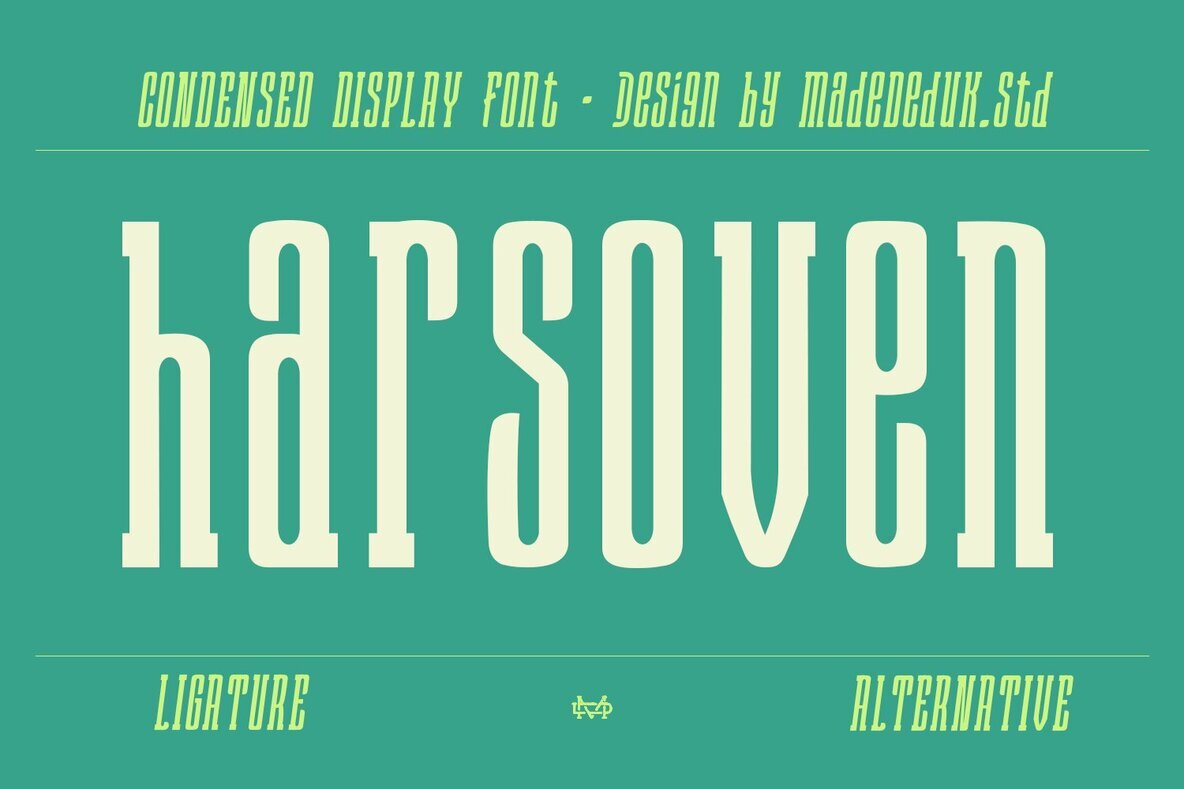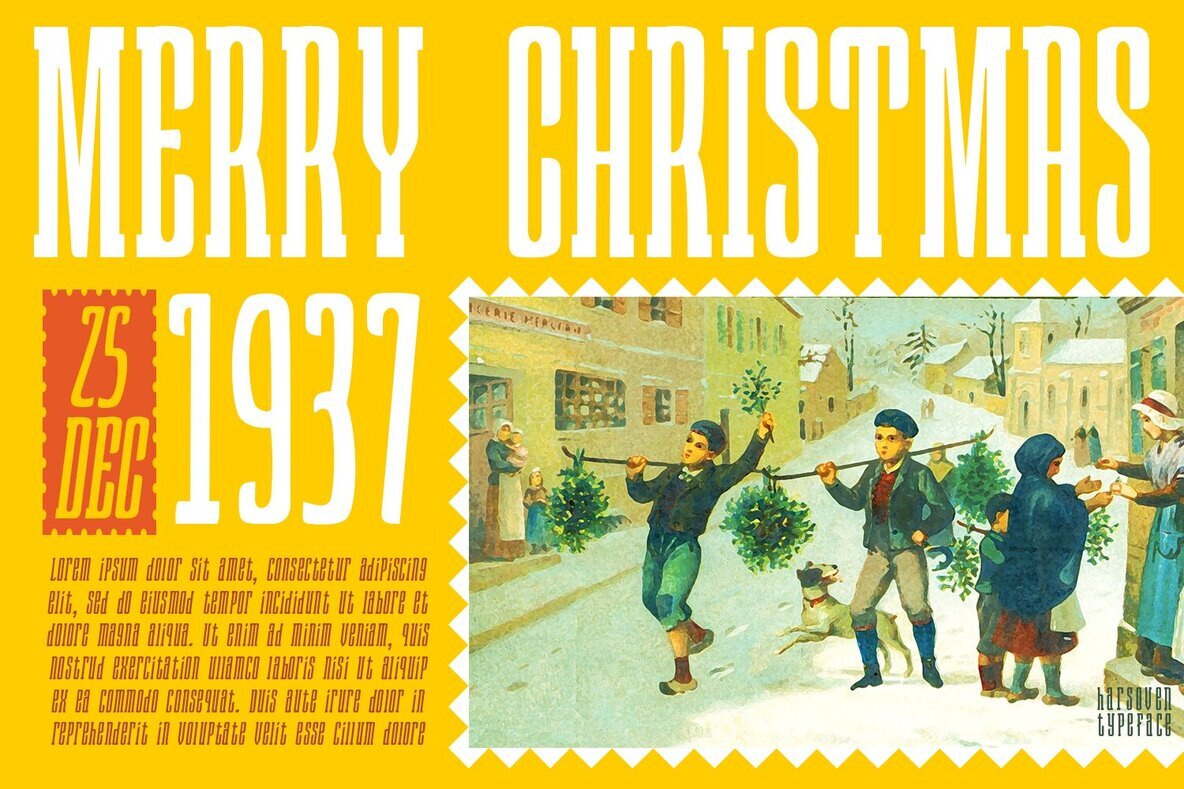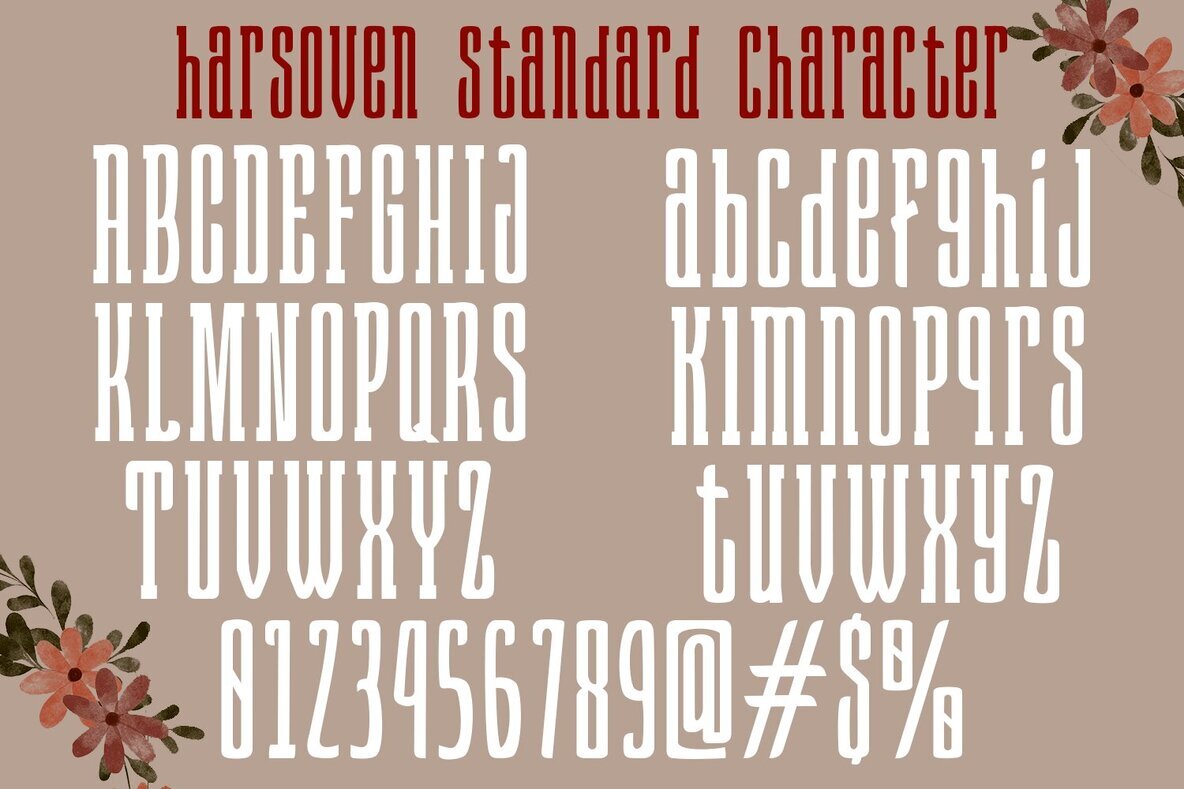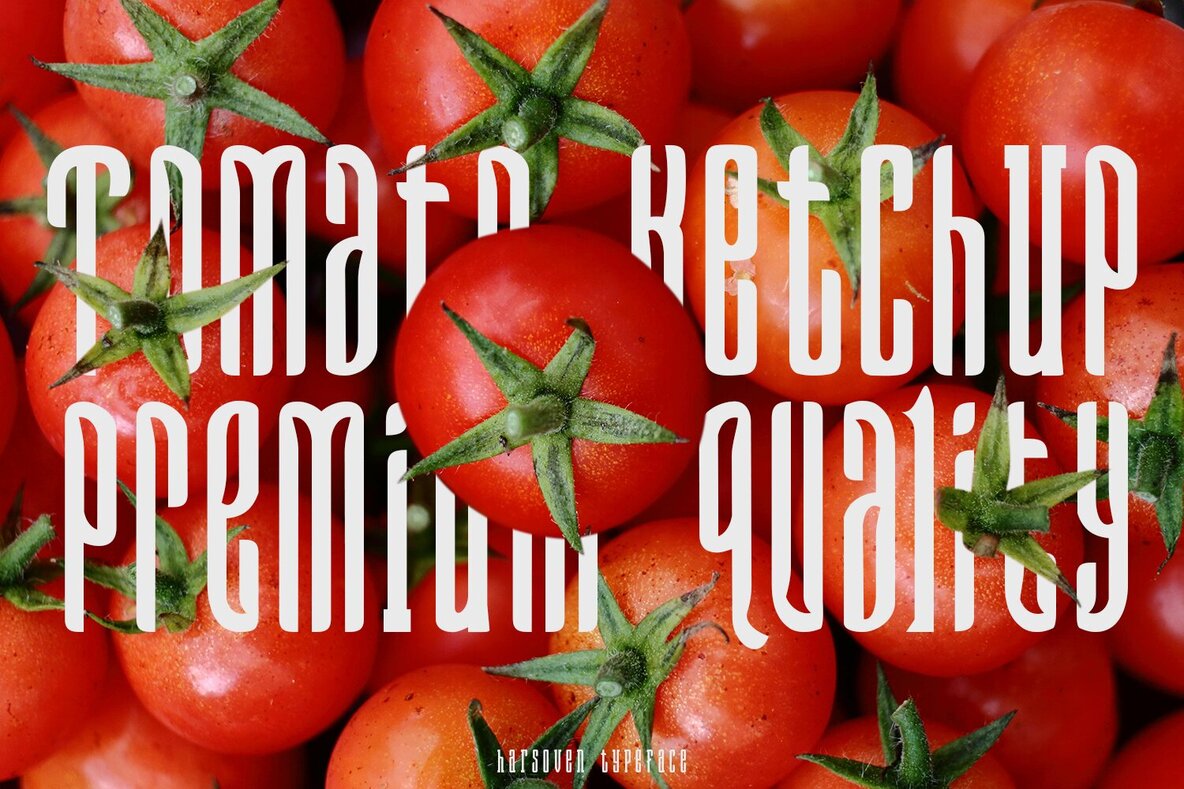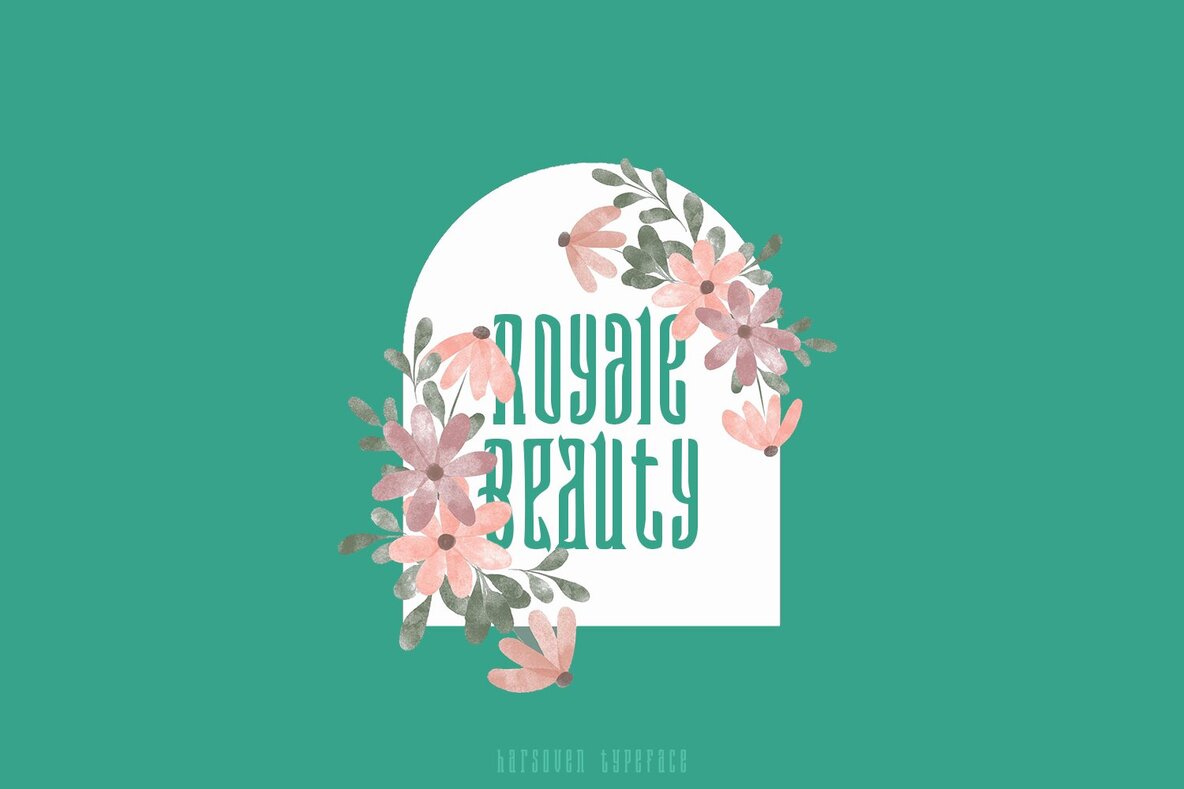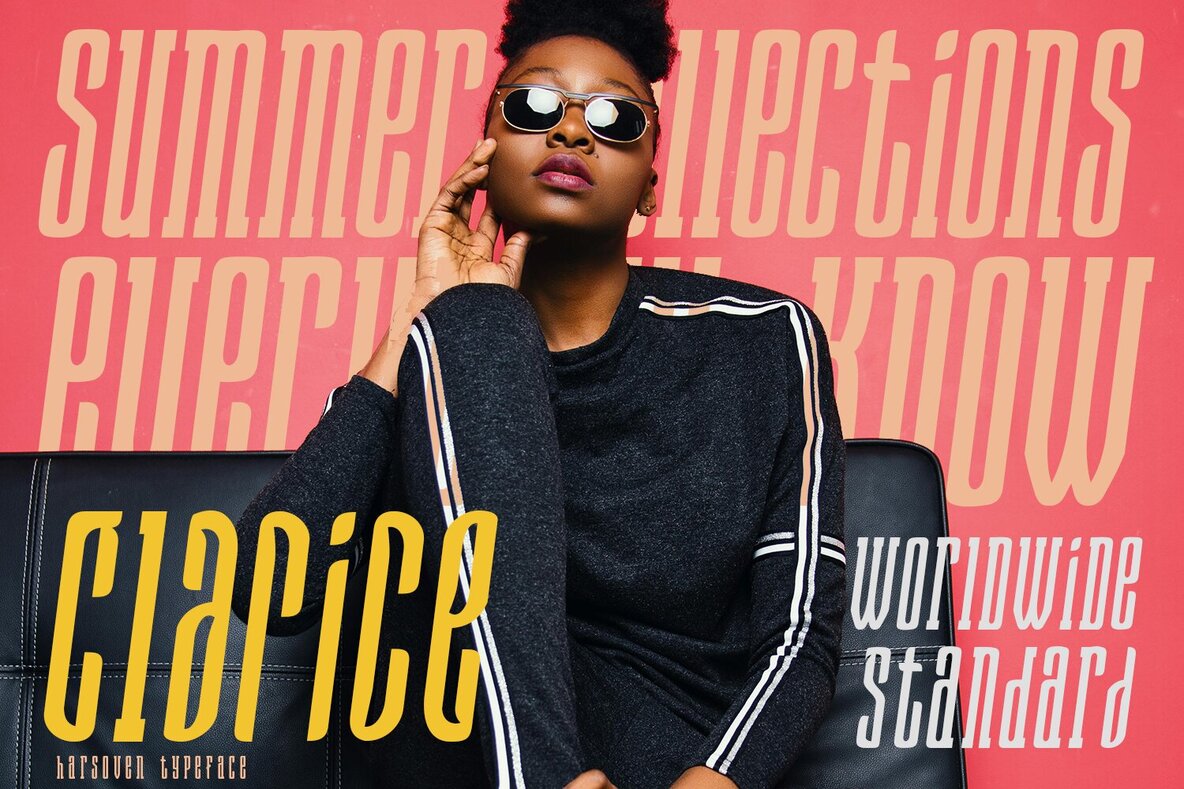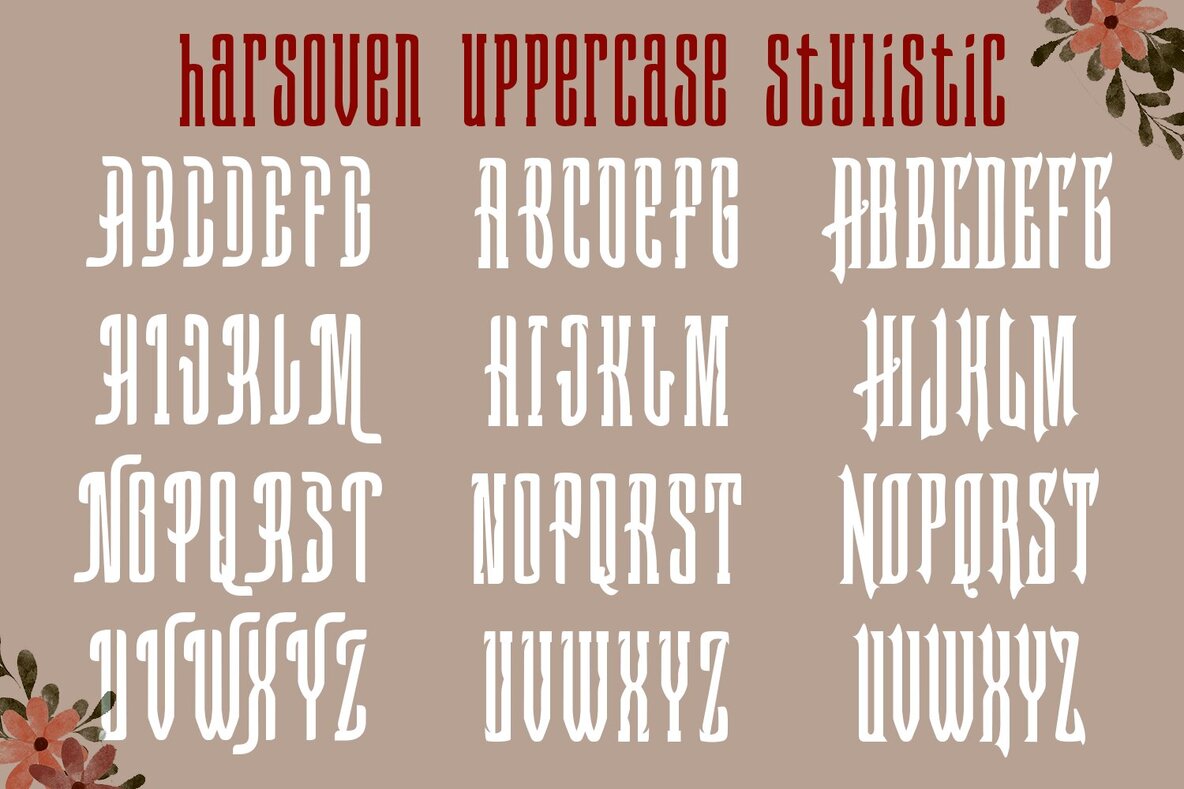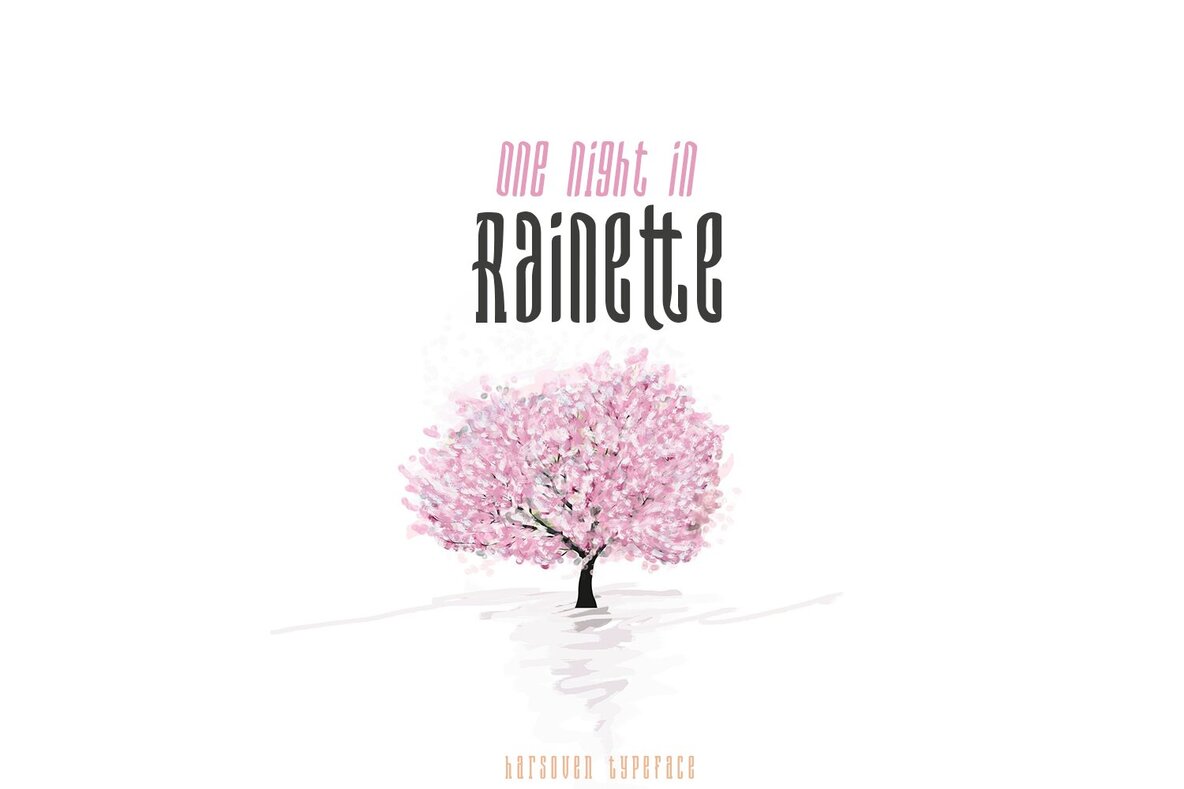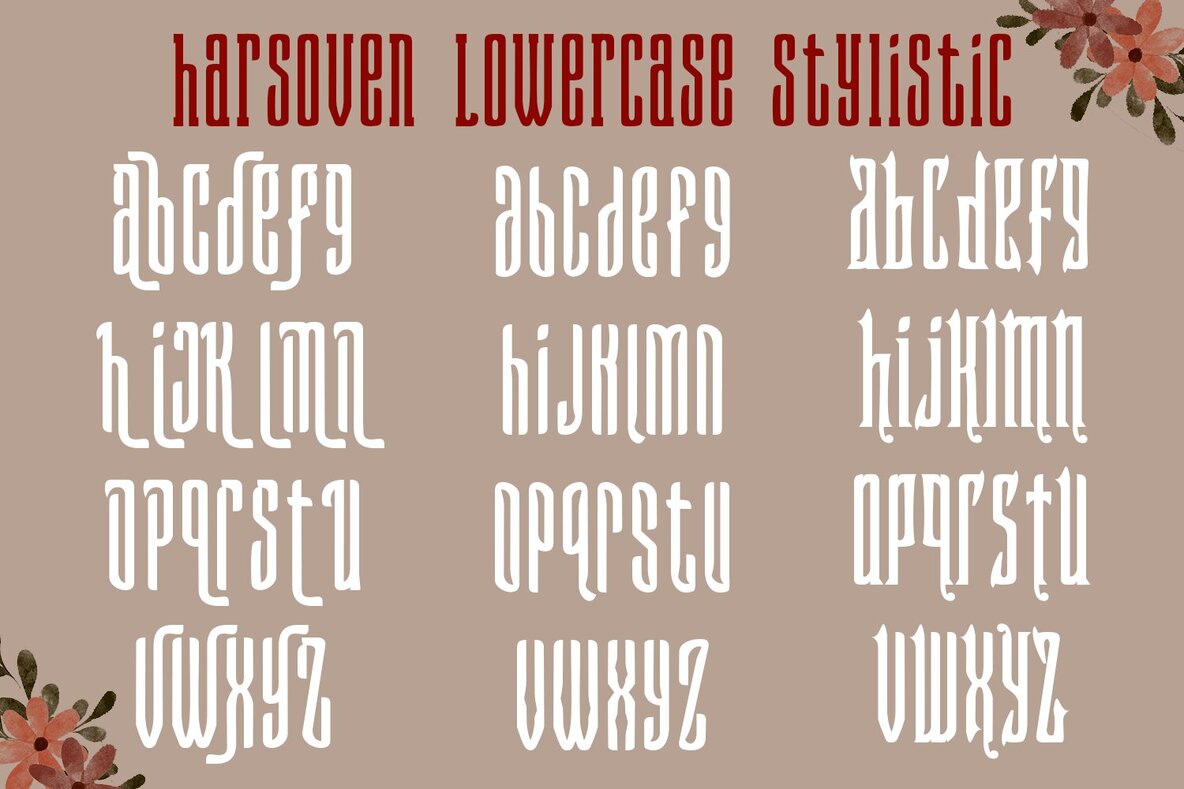
Harsoven Font
Harsoven is a striking condensed serif font defined by its sharp diagonal lines, designed to make your typography stand out. It comes in a single weight with an italic variant, offering versatility for creative projects. This typeface is ideal for bold designs, adding a unique touch to logos, contemporary posters, album art, and lifestyle-driven branding.Harsoven Condensed Serif Font
Perfect for Various Applications